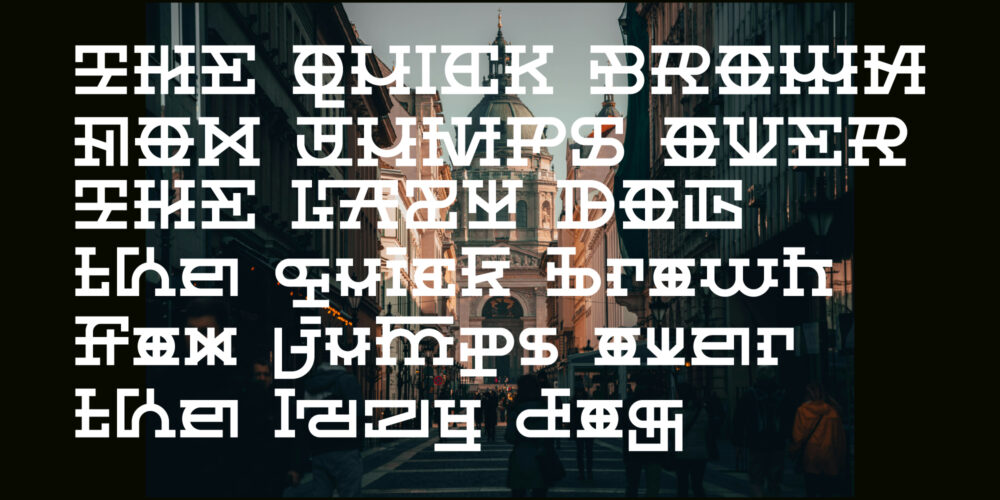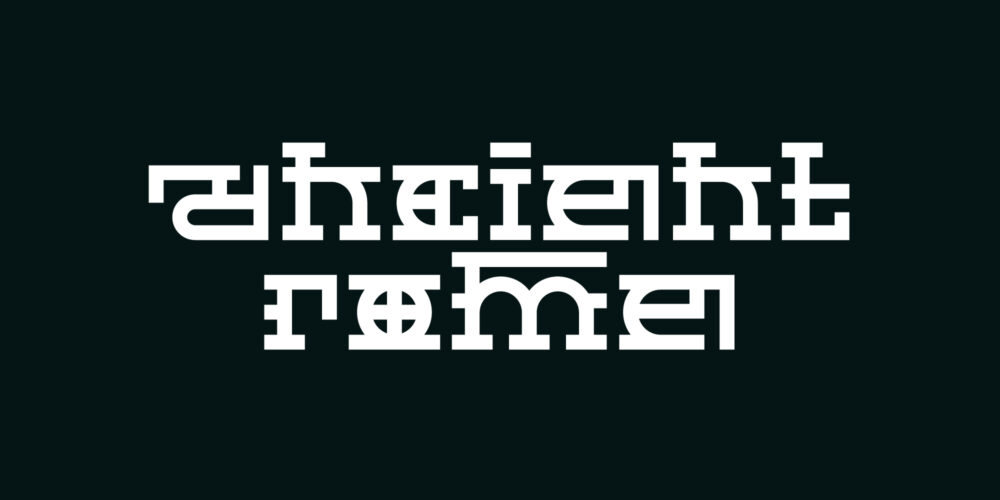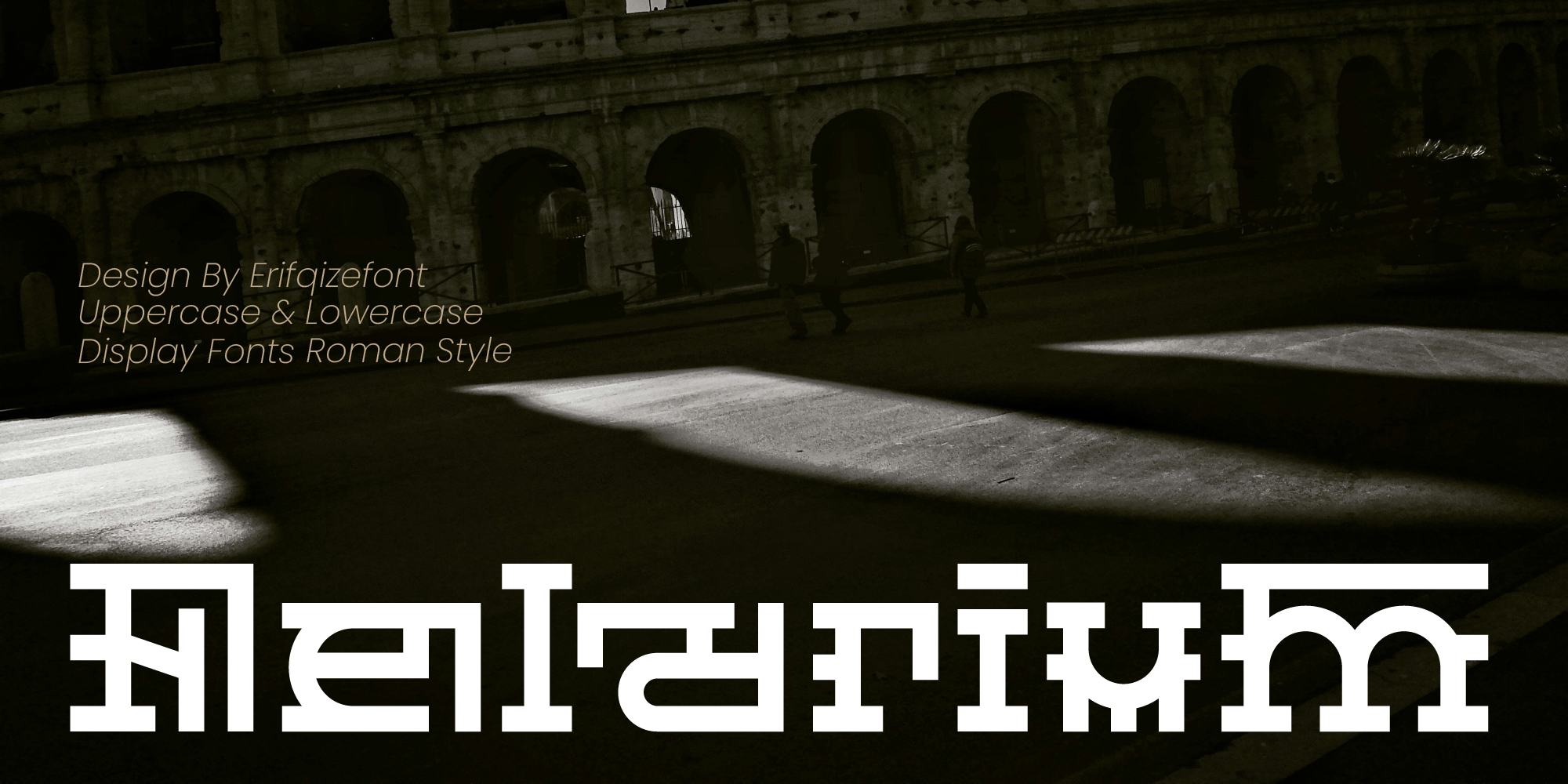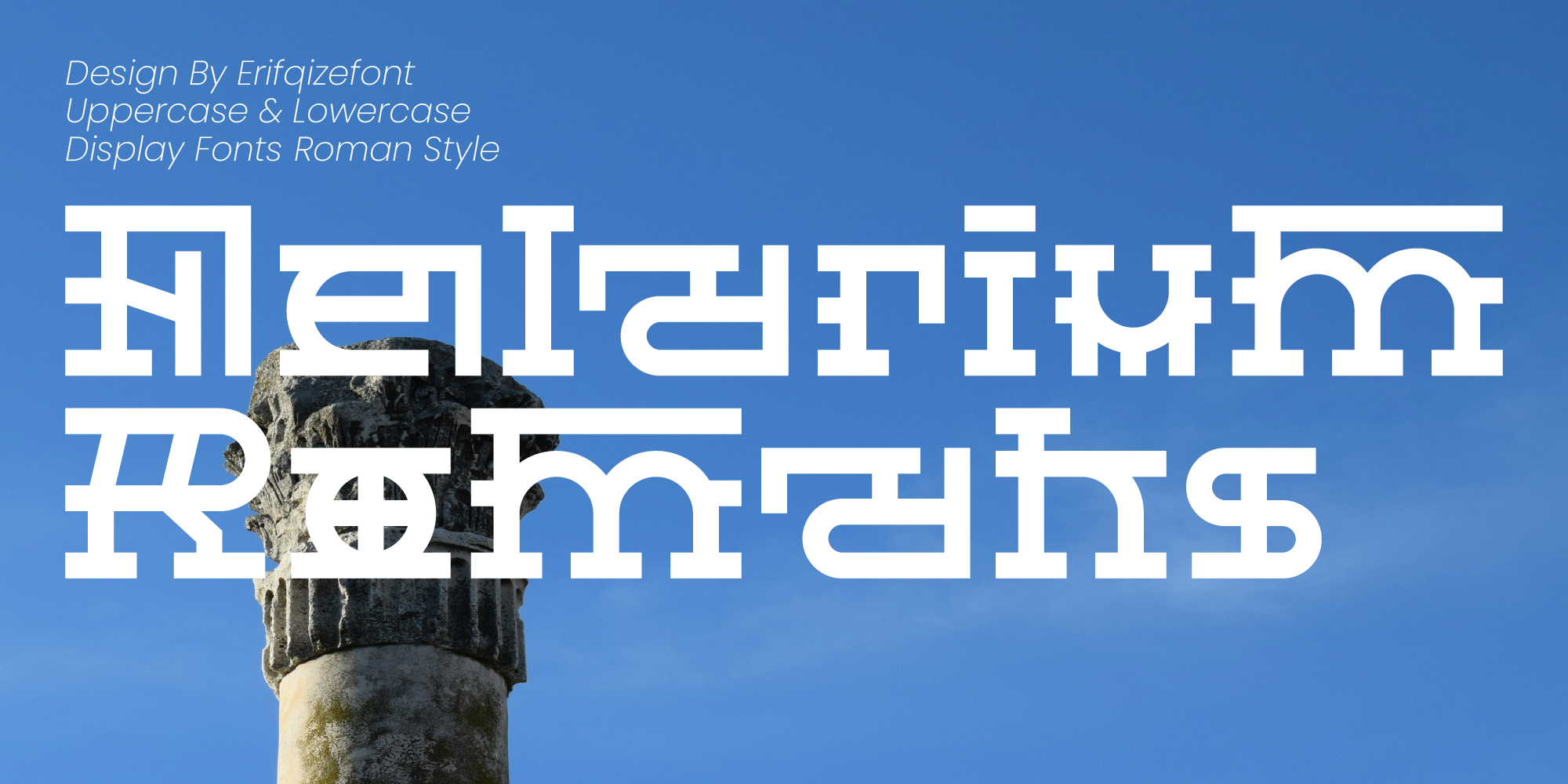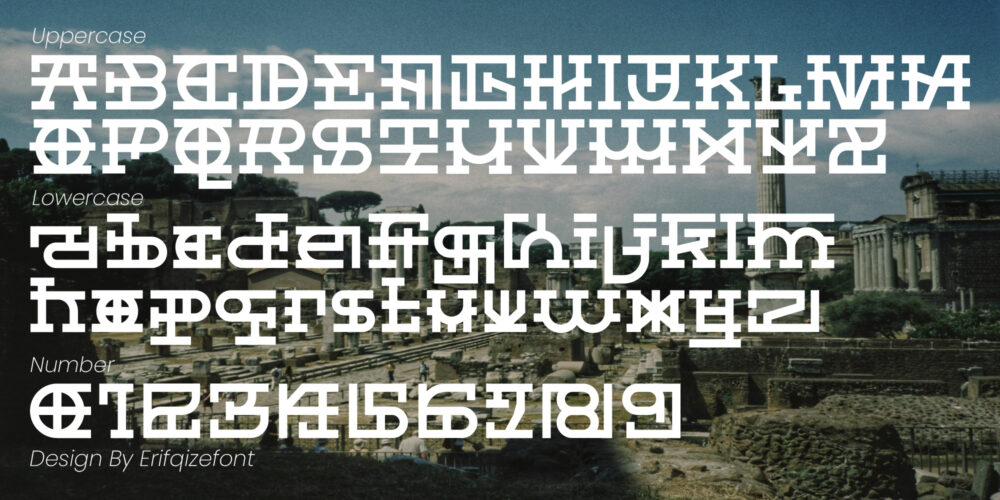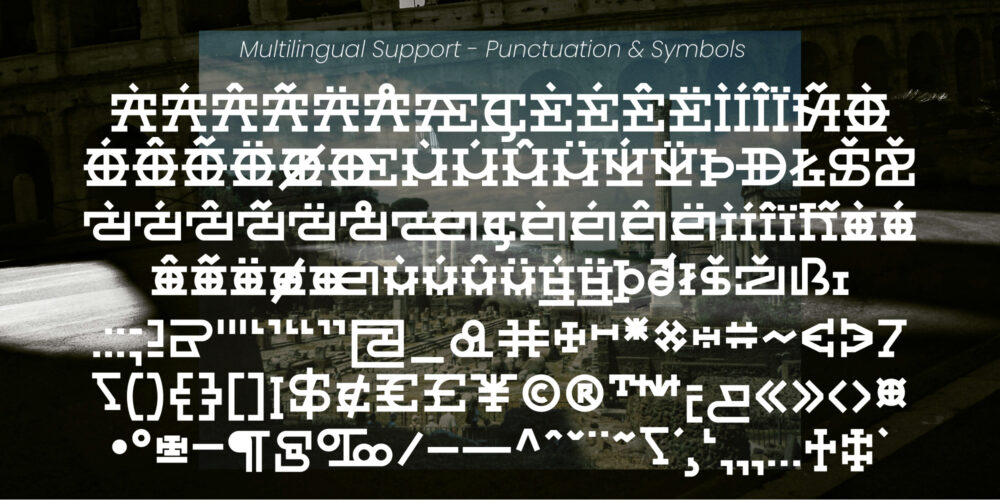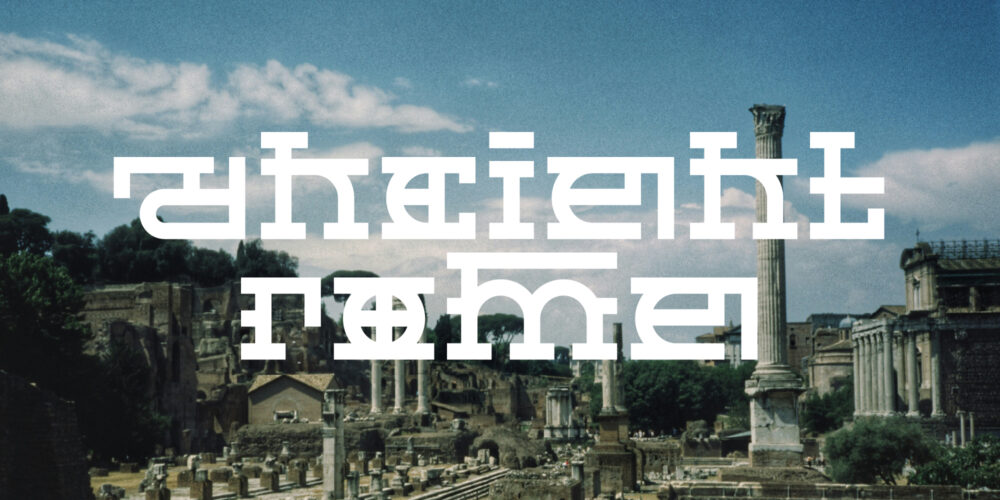
Felarium Romans
Felarium – Monumental Roman Display Font
Felarium is an experimental display font inspired by the iconic structure of Roman numerals and the timeless grandeur of classical architecture. Designed by Erifqizefont, Felarium merges historical depth with a bold, modern twist—creating a distinctive typeface full of personality and purpose.
Featuring unique uppercase and lowercase characters, Felarium’s forms are rigid yet expressive, blending architectural motifs with futuristic aesthetics. It’s the perfect choice for historical-themed designs, epic movie posters, elegant branding, editorial layouts, or cultural institutions.
With multilingual support, Felarium is ready to communicate across borders. Each character feels like a carved monument—standing tall, striking, and unforgettable.
Features:
• Bold uppercase and lowercase letterforms
• Roman numeral & classical-inspired concept
• Structural, decorative, and futuristic in feel
• Multilingual support
• Great for posters, titles, branding, and editorial use
Felarium Romans – Roman Style Font
Felarium is an experimental display font inspired by the iconic structure of Roman numerals and the timeless grandeur of classical architecture. Designed by Erifqizefont, Felarium merges historical depth with a bold, modern twist—creating a distinctive typeface full of personality and purpose